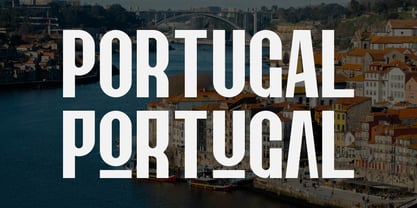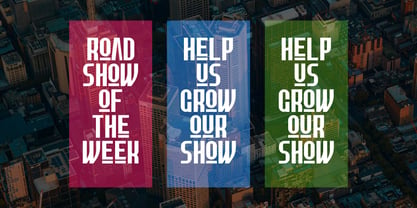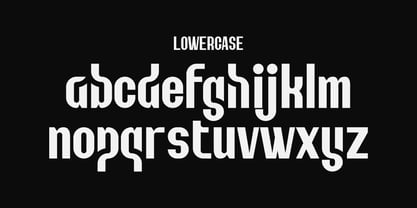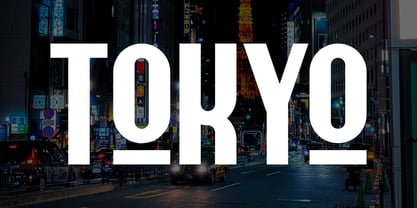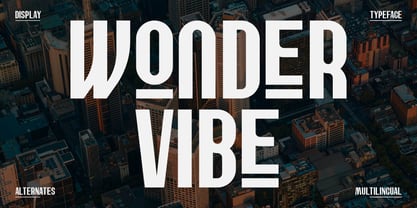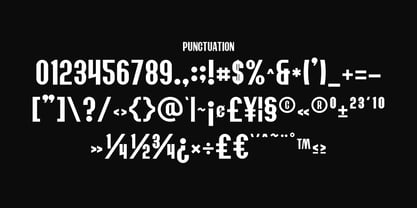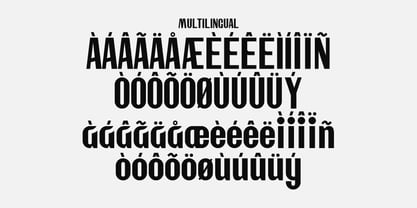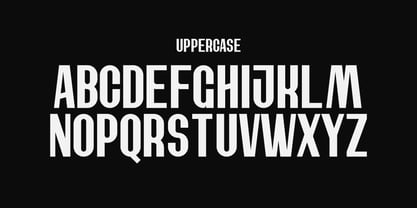
Wonder Vibe
The Wonder Vibe Font Family was designed by Iwan Alwan and published by Artiveko. Wonder Vibe contains 2 styles and family package options. More about this family
Wonder Vibe is a dynamic display sans serif typeface that infuses energy, personality, and contemporary style into your visual projects. With its expressive letterforms, playful structure, and modern aesthetics, Wonder Vibe offers a fresh and eye-catching typographic experience. Ideal for branding, posters, social media graphics, packaging, content creation, merchandise, and modern visual identity, this font empowers designers to craft standout compositions with a strong creative character. Its bold yet approachable appearance makes it perfect for lifestyle brands, youth-oriented campaigns, and trendy digital content. Whether you’re building a modern brand, creating viral social media visuals, or designing stylish promotional materials, Wonder Vibe brings fun, confidence, and originality to every layout. Wonder Vibe is not just a font — it’s a creative vibe for modern expression.
Artiveko is a font design team based in Indonesia, comprised of several talented font designers who commenced their careers in the font design industry in 2020. With a dedicated focus on crafting fonts, the team members bring their collective expertise and passion to every project they undertake. Situated in Indonesia, Artiveko draws inspiration from the vibrant cultural landscape of the region, infusing their creations with unique flavors and aesthetics.The team's font collection encompasses a diverse range of styles, including serif, sans serif, handwritten, and script typefaces. Each typeface is meticulously crafted to meet the demands of modern design while offering versatility and functionality across various applications. Whether it's the classic elegance of serif fonts, the contemporary appeal of sans serif designs, the personal touch of handwritten scripts, or the expressive flourishes of script fonts, Artiveko ensures that every font reflects their dedication to quality and innovation.Artiveko's fonts have garnered recognition and acclaim, with their works being featured on prominent social media platforms like Creative Market. Through these platforms, the team has been able to connect with a global audience of designers and typographers, further amplifying their reach and influence in the industry. Their fonts are celebrated for their impeccable craftsmanship, attention to detail, and ability to elevate design projects with style and sophistication.As Artiveko continues to evolve and expand its font collection, the team remains committed to pushing the boundaries of typography and setting new standards of excellence. With a relentless focus on creativity, innovation, and collaboration, Artiveko strives to inspire and empower designers around the world with their distinctive and versatile font designs.